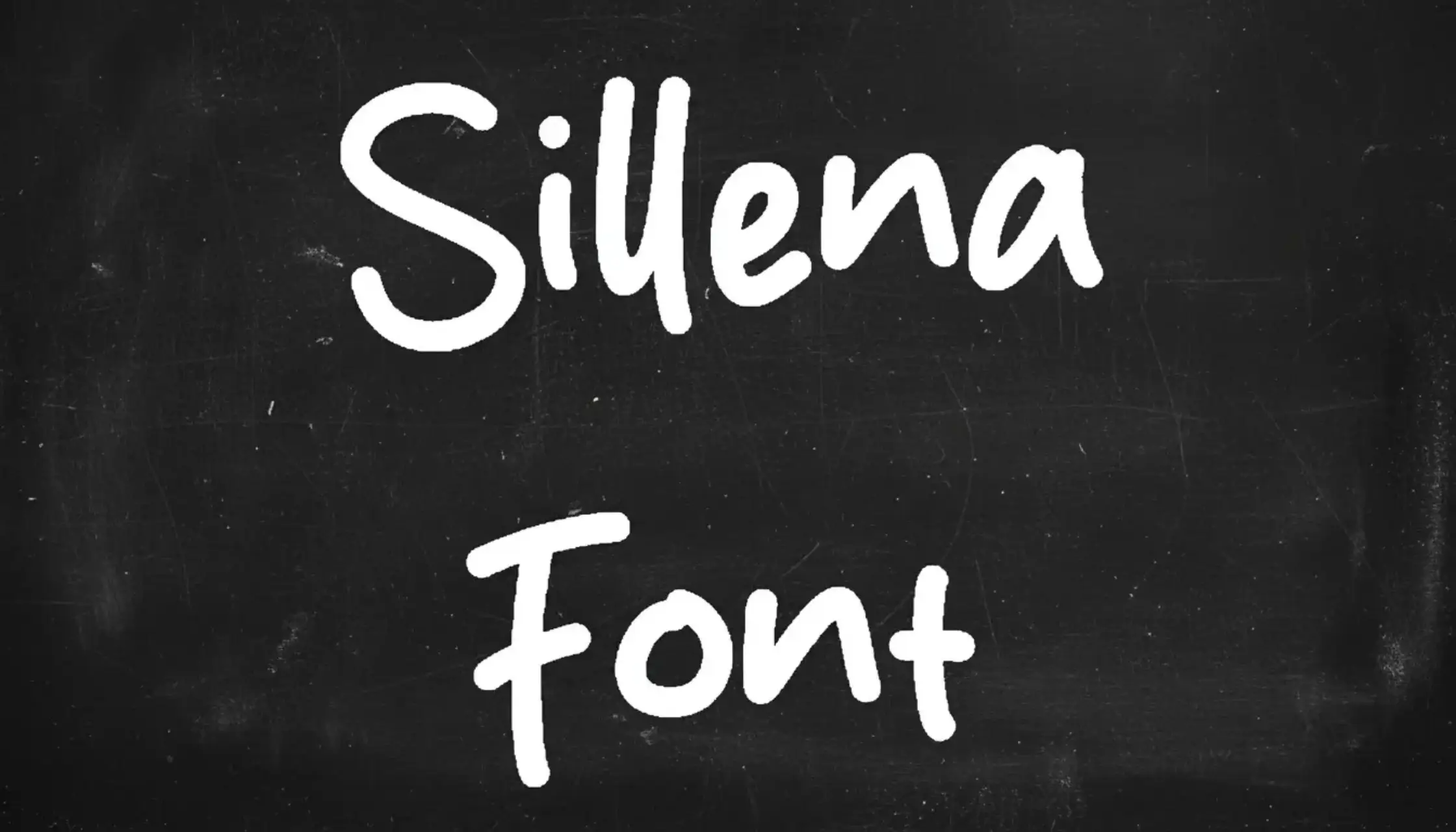
Sillena Font
Sillena
- Designer: MJType (Muhamad Junaid)
What You Can Type With Sillena
With complete upper and lowercase letters and all ten digits, Sillena is ready for real wording, not just a single headline. Common punctuation such as &, !, ? and @ is included as well. It also has the accented letters you need for Spanish, French, German, Portuguese and Italian.
Where Sillena Works Best
Designers usually reach for fonts like Sillena when they're making greeting cards, journal pages and friendly social posts. Set it a bit larger than you would a normal text font. Handwriting styles lose their charm once they get too small to read comfortably.
Does Sillena support accented letters?
Yes. Sillena includes the accented letters needed for Spanish, French, German, Portuguese and Italian, so it works for more than just English.